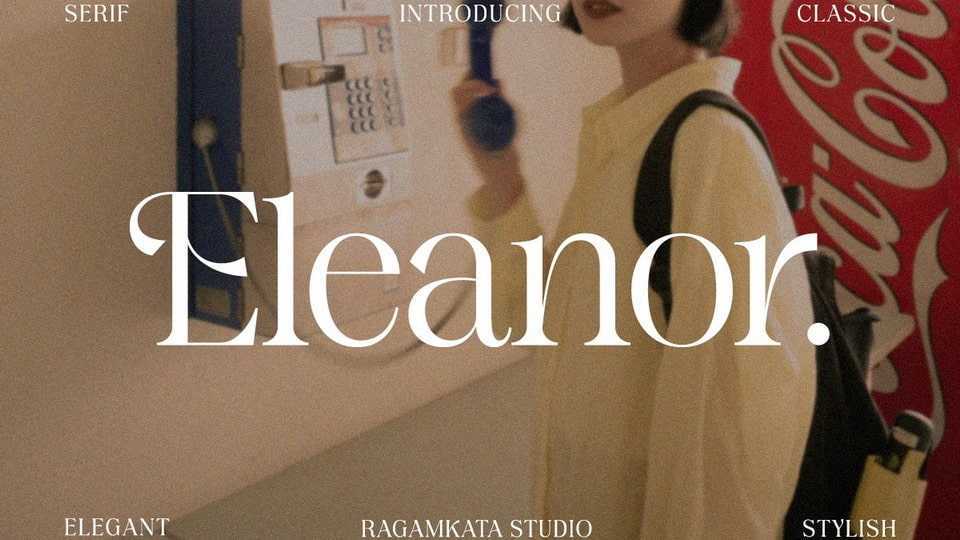
Download Eleanor font, a stylish and classic typeface and twist harmoniously together. Eleanor font will make you love designing and taking advantage of the cool designs.